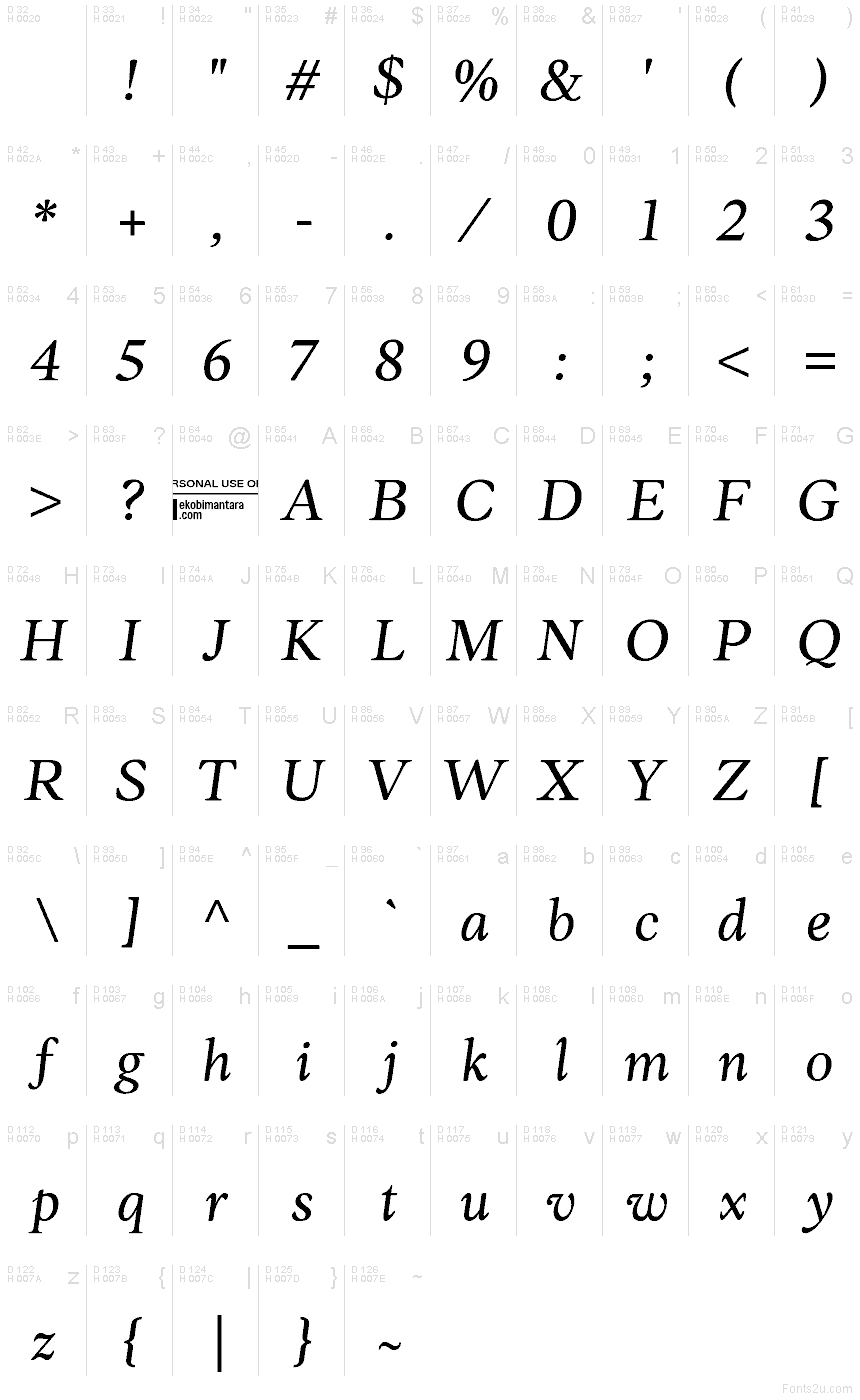
Anko Trial Italic
Anko Italic font by Eko Bimantara is a free italic serif font that leans with graceful momentum. Built within the Anko family, it stands out for its inky, calligraphic tension—high contrast strokes snap into sharp wedges, while soft teardrop terminals keep the rhythm warm and human. The forward slant and generous counters give it a poised sweep that reads crisp at display sizes yet still feels intimate up close.
Using Anko Italic, headlines gain a refined bite and logos pick up a cultured whisper rather than a shout. This free font shines on book covers, editorial pull quotes, boutique packaging, fashion lookbooks, menus, and event invitations. Its spacing feels steady, so type flows without fuss. Simple tip: pair Anko Italic with Anko’s upright roman for body copy to anchor its flourish.